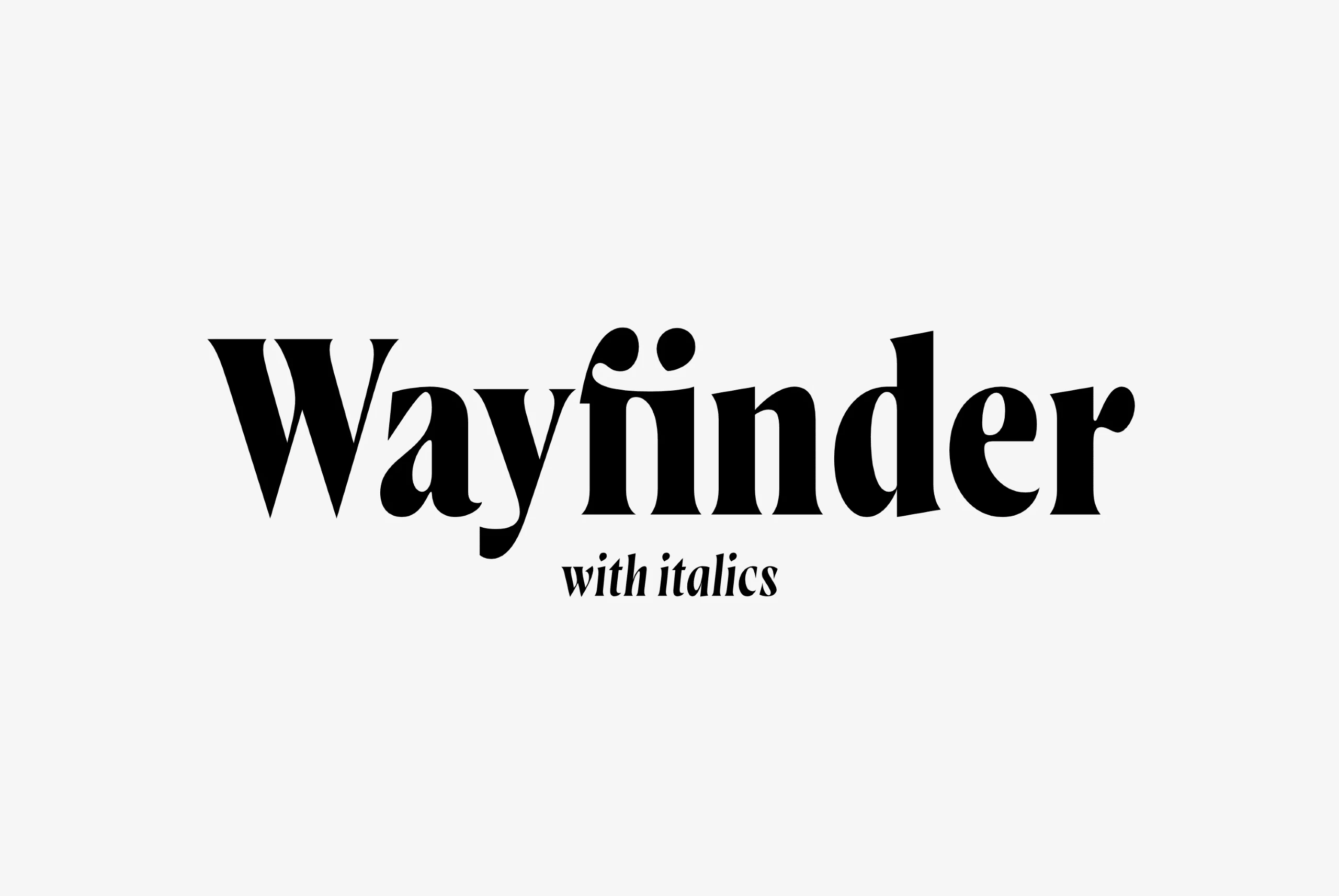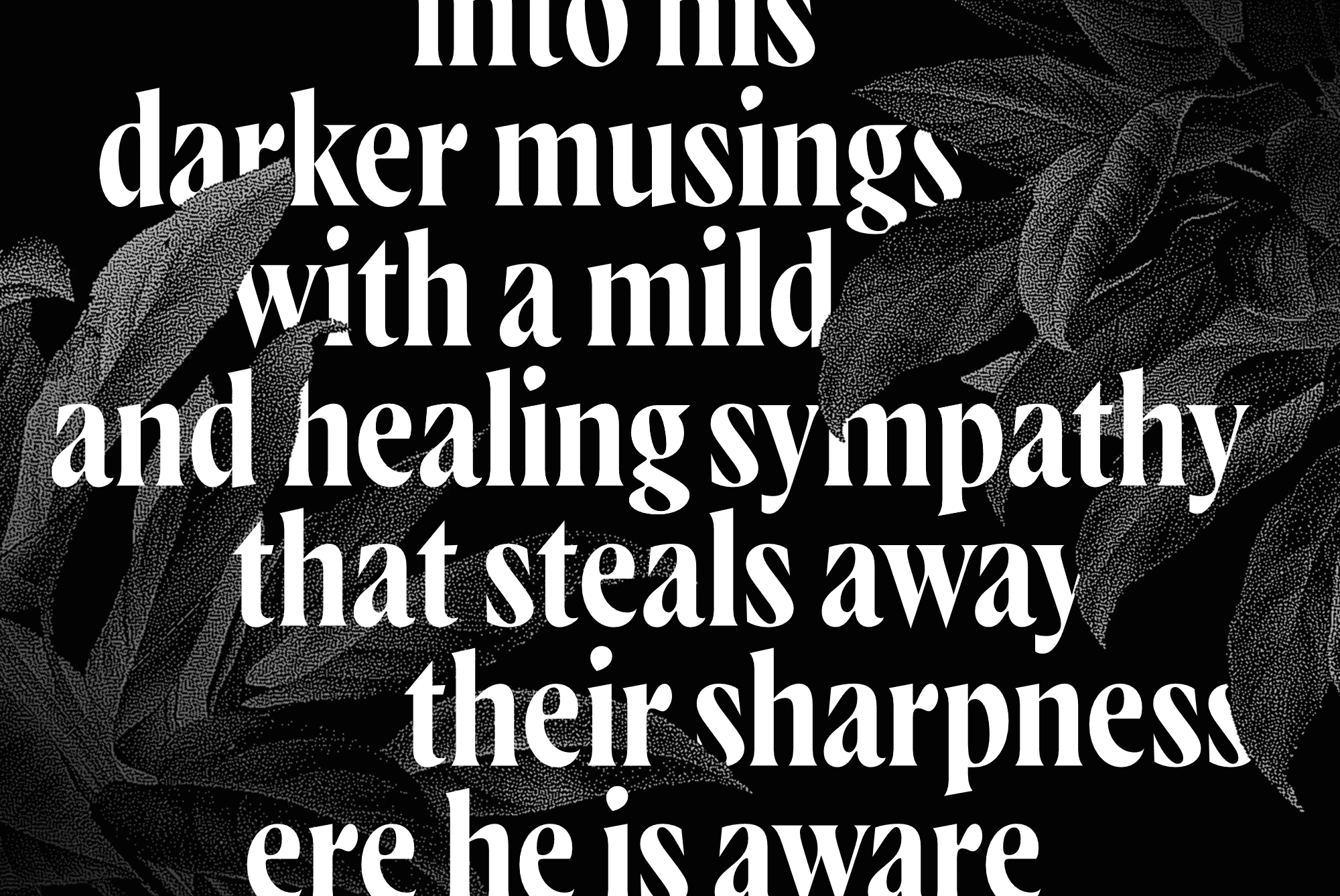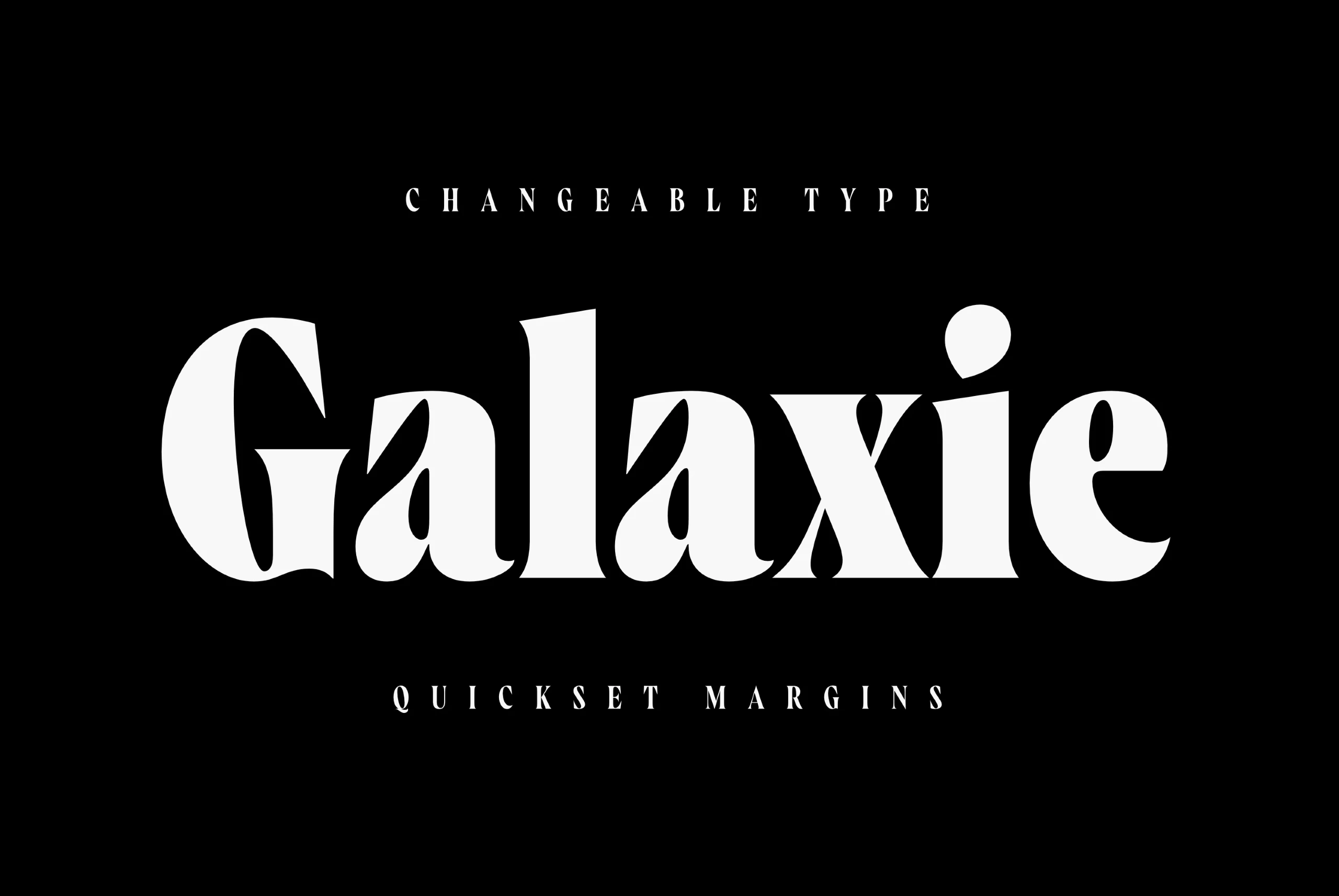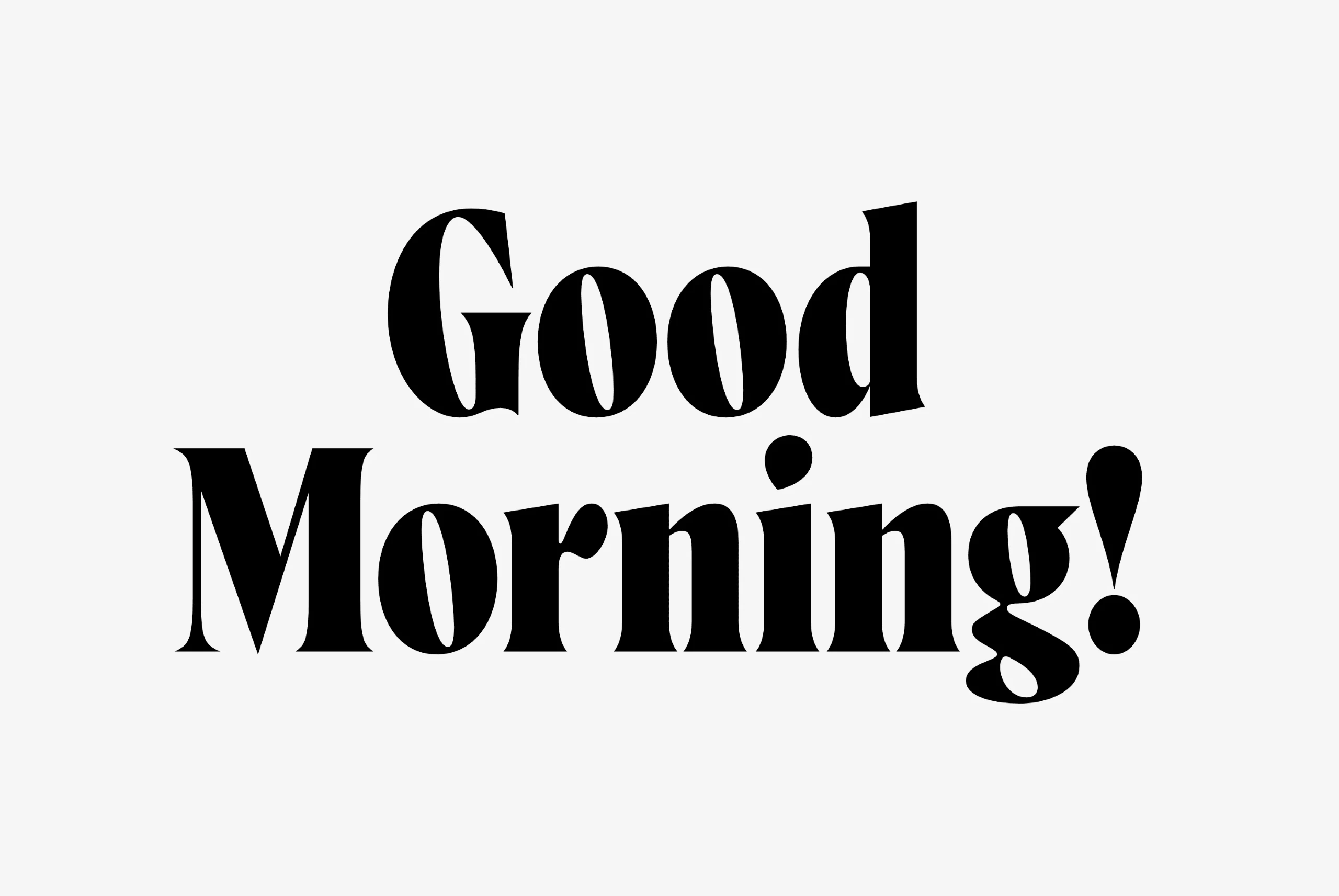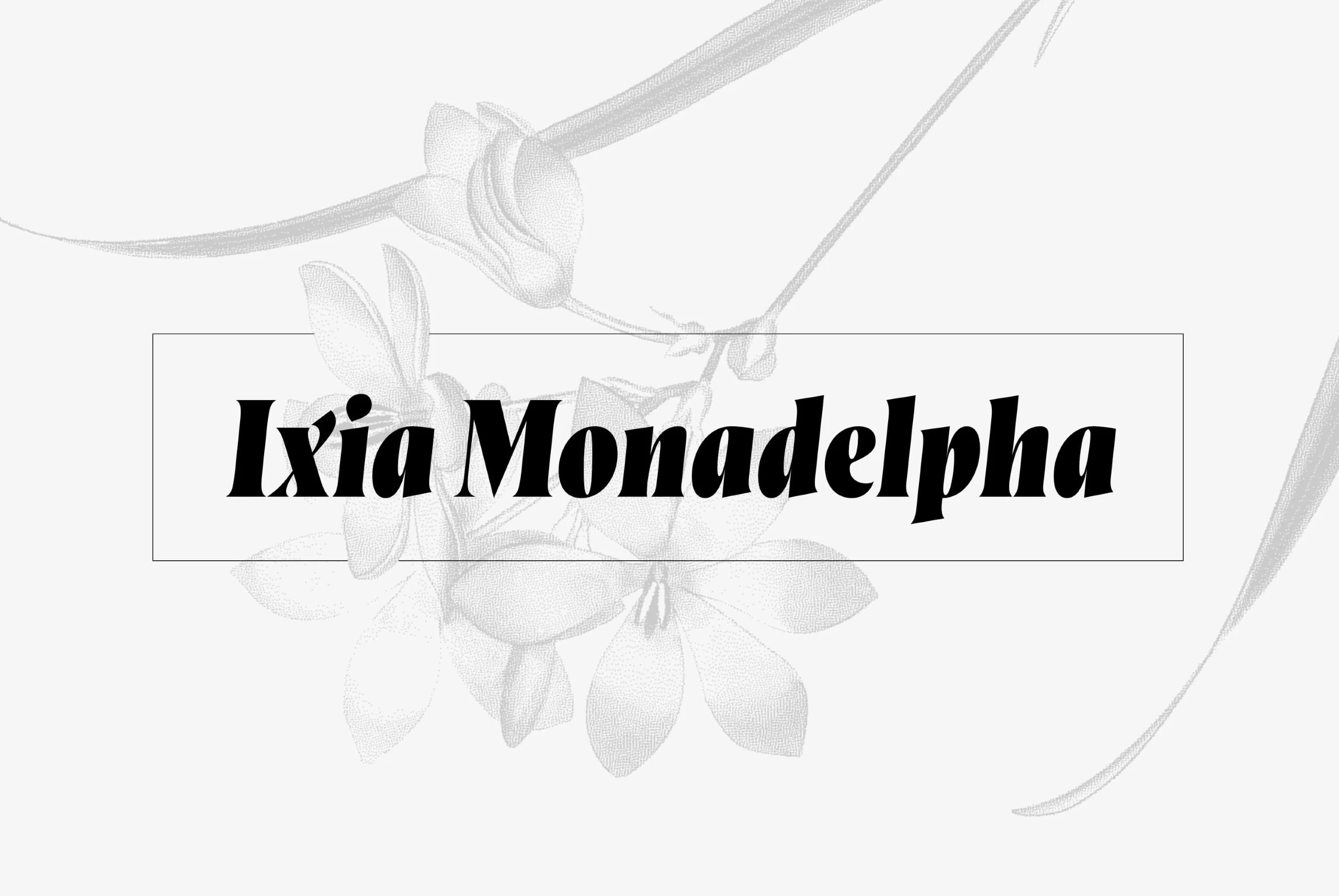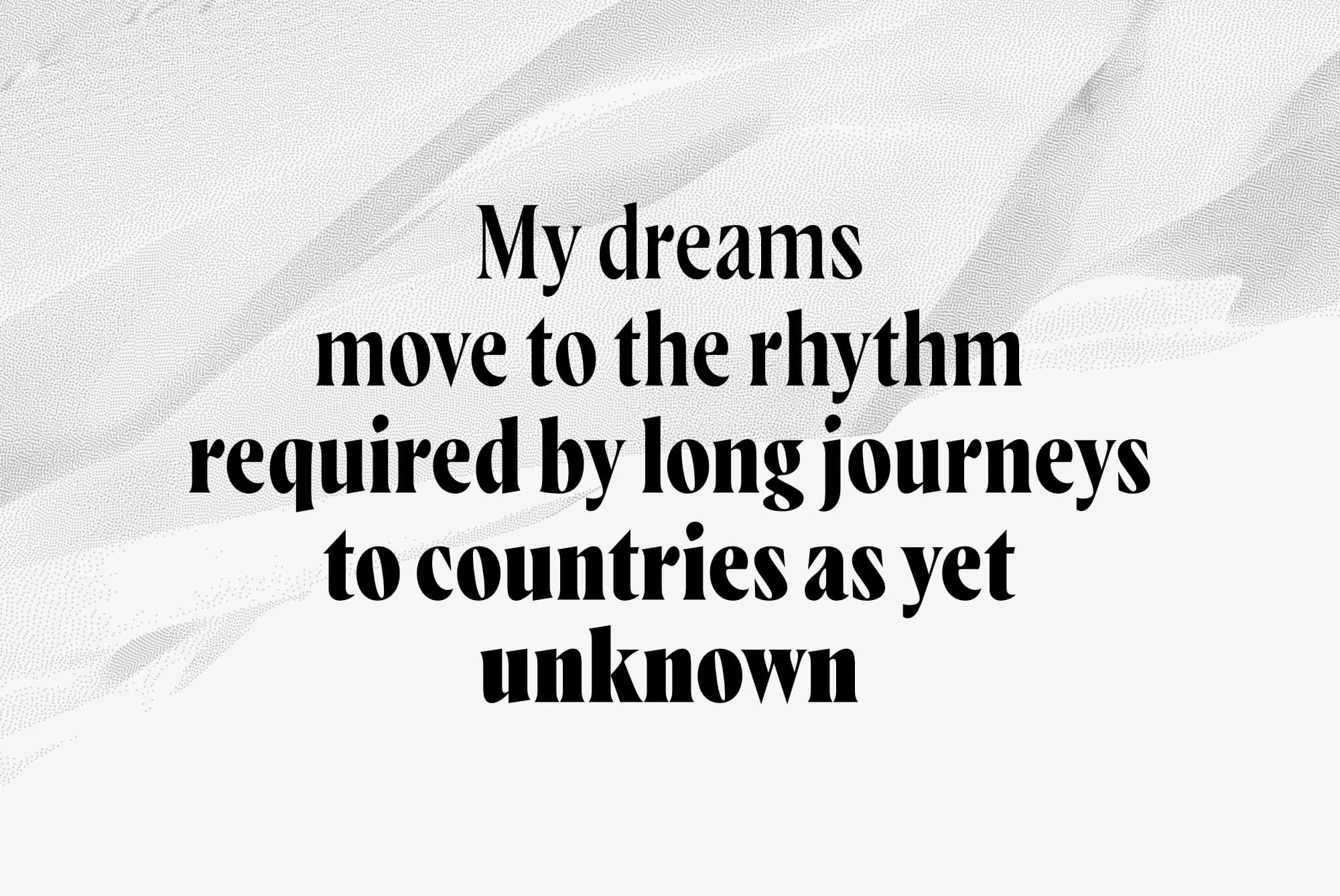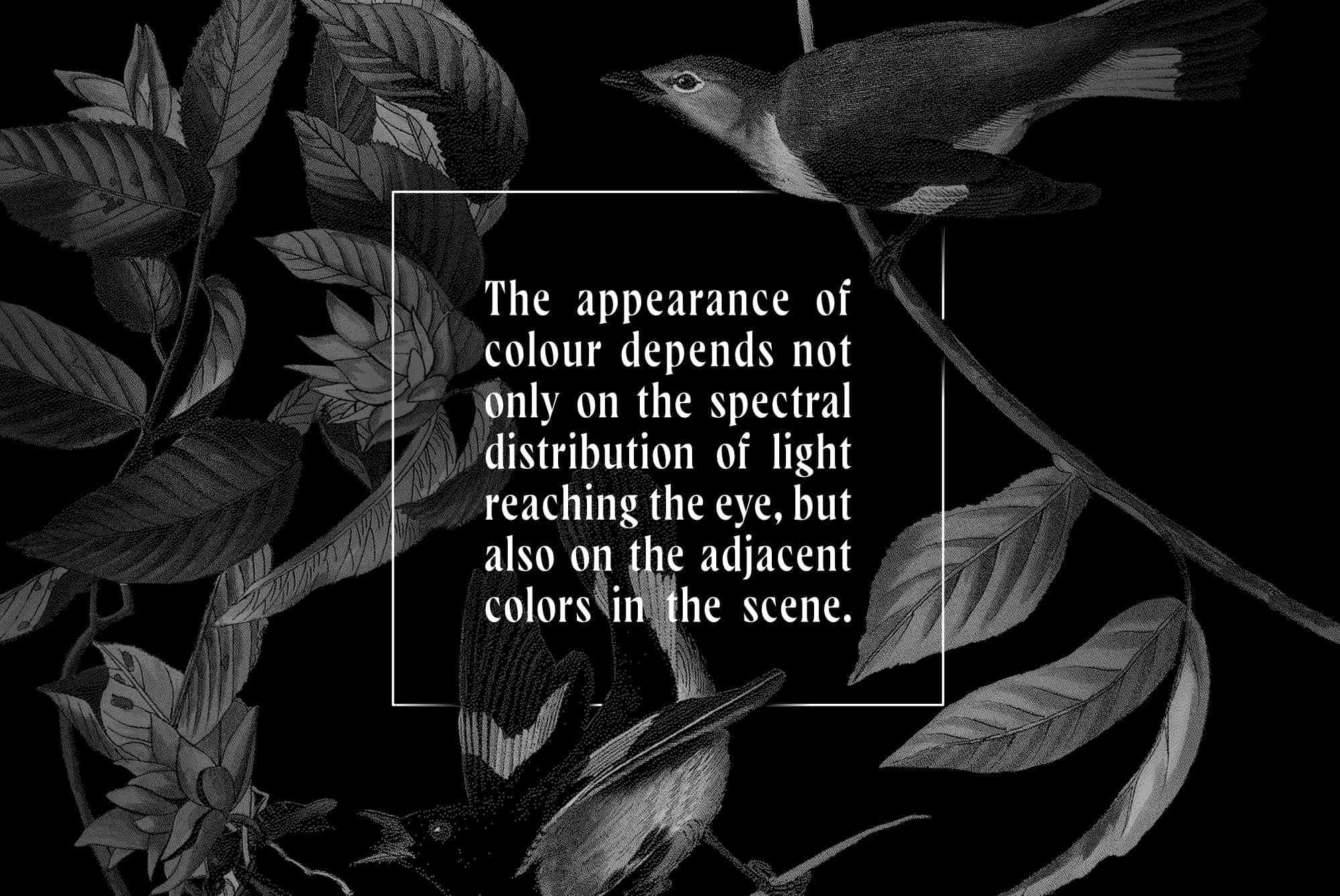
Wayfinder
Wayfinder Font Family
Wayfinder CF imparts both elegance and urgency to any text. Equally warm and intense, Wayfinder is a display font family made for logos, headlines, titles, and other short texts. Seven weights cover everything from an airy thin to a brilliant heavyweight.
Wayfinder font by Connary Fagen Fonts — the word “Wayfinder” in a bold, upright serif, with the words “with italics” below it in a smaller, italic serif. Wayfinder font by Connary Fagen Fonts — white upright serif text, partially obscured by dark stippled leaves, reads “into his darker musings with a mild and healing sympathy that steals away their sharpness ere he is aware” Wayfinder font by Connary Fagen Fonts — the word “Galaxie” in large, upright, high-contrast serif letters, with the words “CHANGEABLE TYPE” above and “QUICKSET MARGINS” below in smaller, lighter serif capitals Wayfinder font by Connary Fagen Fonts — the words “Good Morning!” in a high-contrast serif typeface, with “Morning!” set in an oblique style Wayfinder font by Connary Fagen Fonts — the words “ESTD & CO” and “aaa” in upright serif, “Swift Infinite Definition” in italic serif, and “Lorem ipsum” in swash italic serif, with two arrows. Wayfinder font by Connary Fagen Fonts — the words “Ixia Monadelpha” in a heavy italic serif font, with a faint floral illustration in the background Wayfinder font by Connary Fagen Fonts — the upright serif text “My dreams move to the rhythm required by long journeys to countries as yet unknown” on a light gray background with a subtle stippled pattern Wayfinder font by Connary Fagen Fonts — a white serif upright text block, “The appearance of colour depends not only on the spectral distribution of light reaching the eye, but also on the adjacent colors in the scene,” framed by a thin white rectangle and surrounded by black-and-white illustrations of birds and foliage.